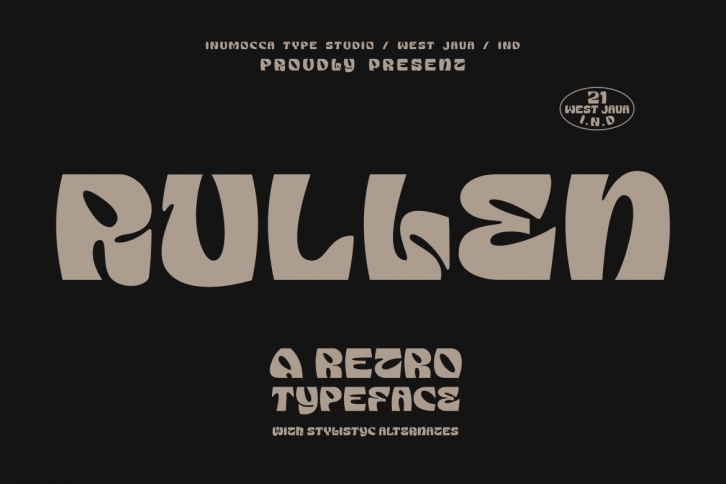
Rullen is a retro-looking display font. This 70s font is great for projects that need a beautiful combination of old and new.
Use this font to create excellent branding materials, movie titles, headlines, book covers, magazines, posters, quotes, logos, or more.